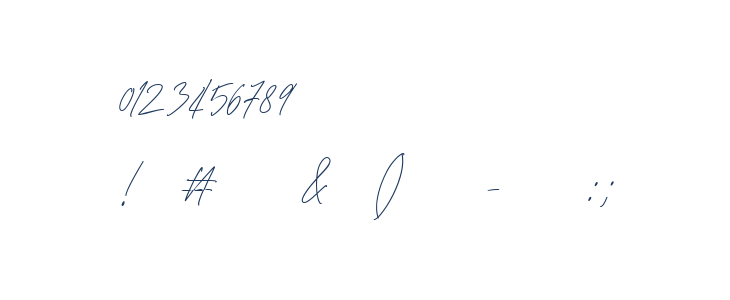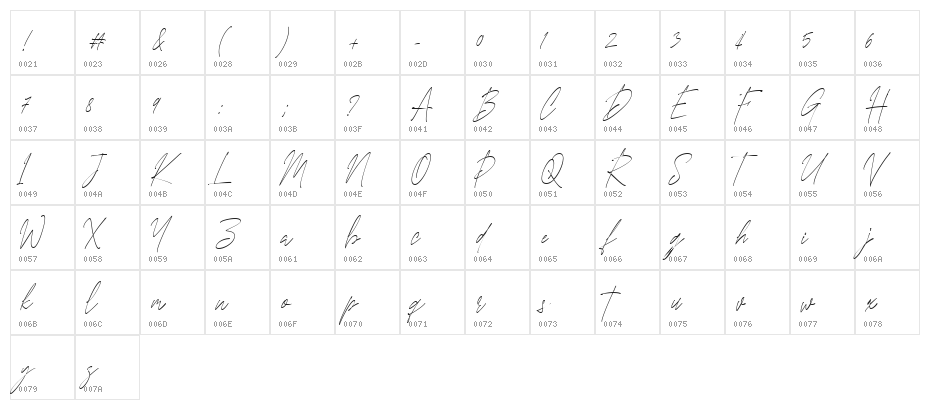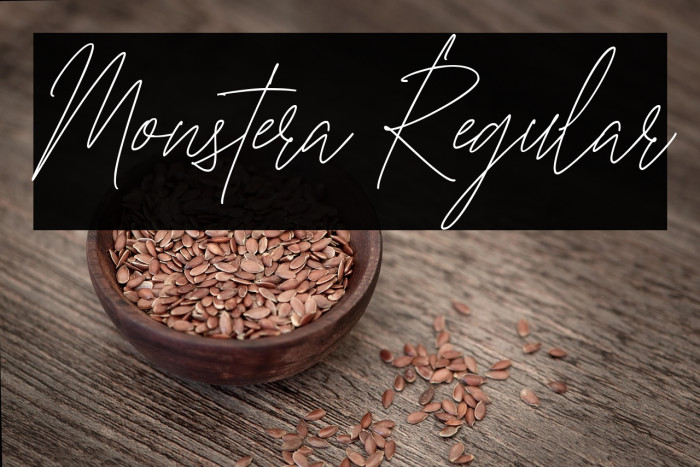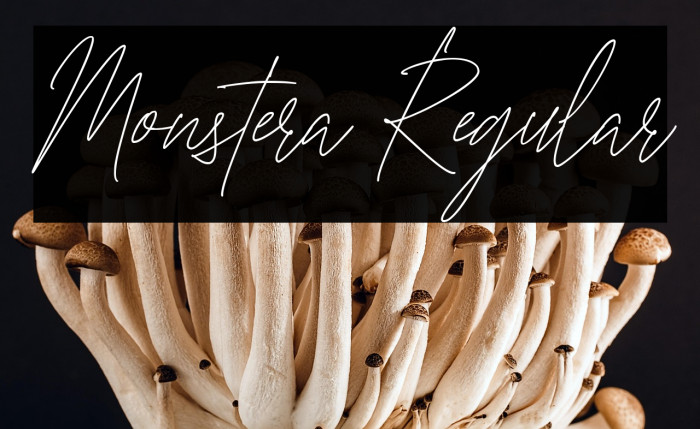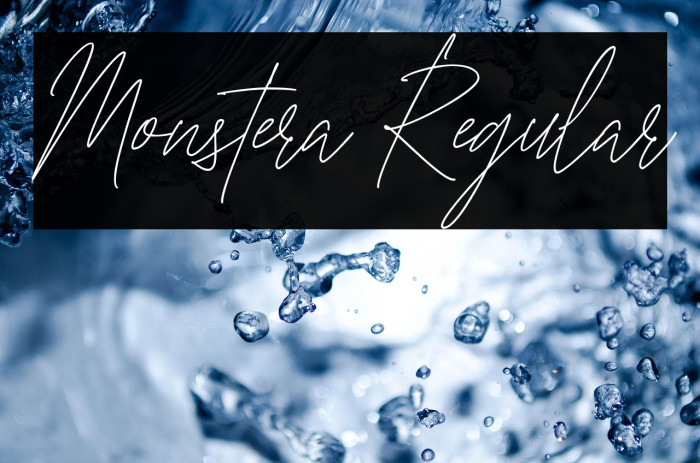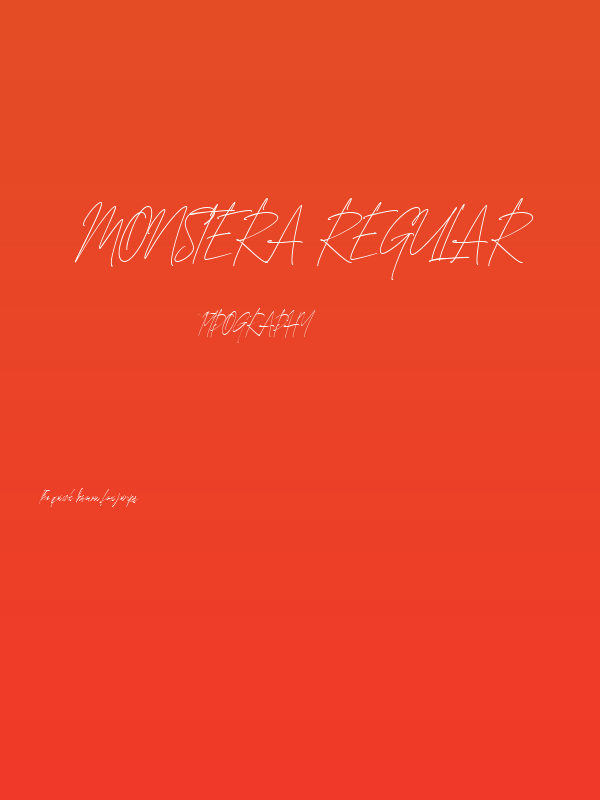
Monstera Regular Font
Monstera Regular Description
This font features an elegant, flowing script style that mimics natural handwriting. The characters are connected, creating a seamless and fluid appearance. The strokes are thin and delicate, giving it a sophisticated and graceful look. The uppercase letters are slightly larger and more ornate, while the lowercase letters maintain a consistent, flowing baseline. Numbers and special characters are designed to match the overall aesthetic, ensuring a cohesive appearance across all text. This font is perfect for projects that require a personal touch or an artistic flair.
| Proposed Projects | Ideal for wedding invitations, greeting cards, personal branding, and artistic projects. |